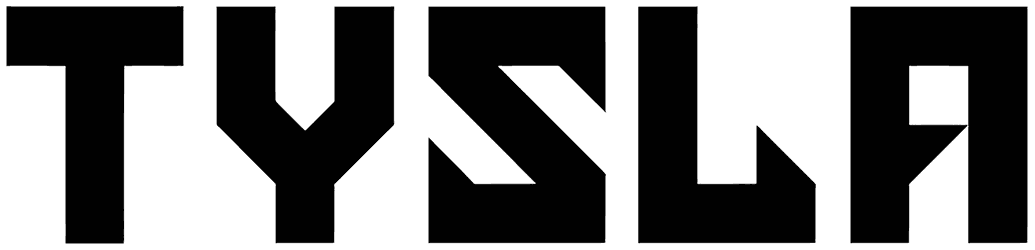
A brutal, penetrating, and effective Tysla font, often used in movie titles, can lend your graphic design a striking personality through its sharp and strong characters. This all-caps futuristic font helps write photos, design letterheads, games, apps, banners, and many other projects that need attention. Just hit download, and for more, visit our website!
Tysla is a free font based on my interdisciplinary project “TypeSlam – Spiel und Schrift”.